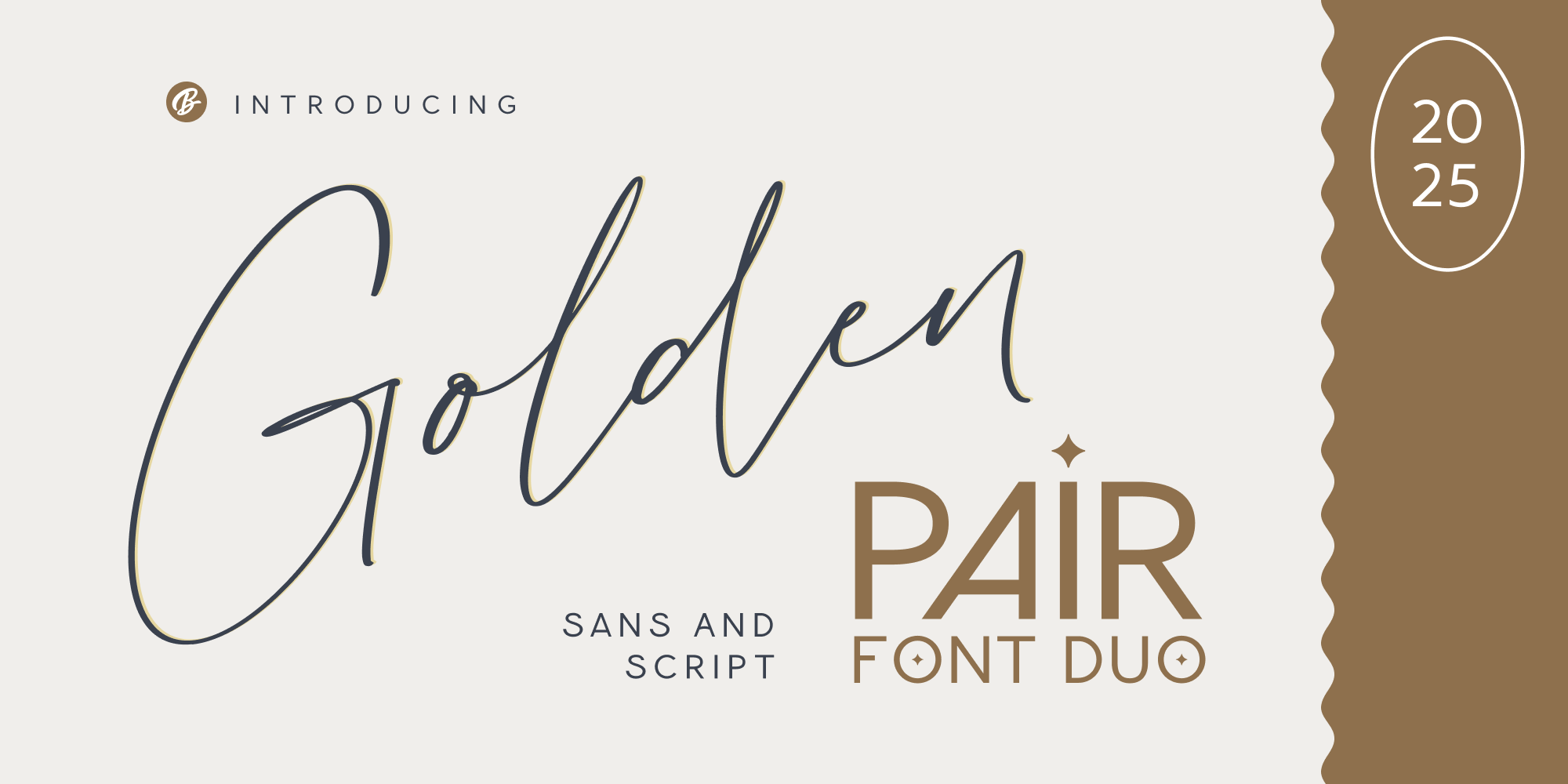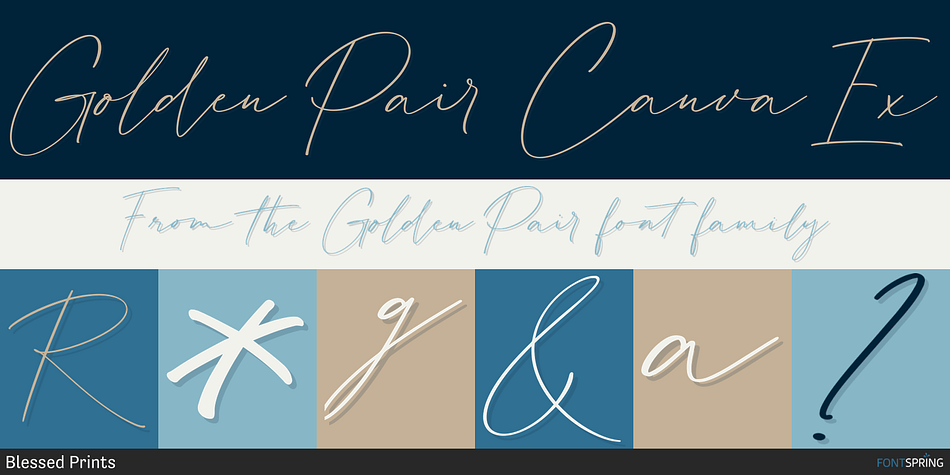
Golden Pair Canva Ex1
Designed by Dmitrii Mikitenko, Golden Pair is a display font family. This typeface has eight styles and was published by Blessed Prints.
Golden Pair is a sophisticated font duo that perfectly blends a modern script with a ligature reach sans serif. Designed for modern creatives, this font offers both versatility and timeless elegance. Whether you’re working on luxury branding, stationary, web design or stylish packaging, Golden Pair provides the perfect balance of charm and professionalism.
Golden Pair Sans Ligatures: This sans font is always displayed in uppercase, even when typing in lowercase. If you type in all uppercase, ligatures will activate automatically.
Golden Pair Sans Alternates: Add a number after a letter to activate stylistic alternates (e.g., `A1, A2, A3`), or use `+` after `O, D, C` to insert a star.
Golden Pair Script Swashes: Add a swash at the end of a word by typing `]`, like `and]` or `and]]]`.
Script font: Thin, Ex1, Ex2 strokes.
406 + 823 Glyphs: Including a vast array of stylistic alternates, ligatures, and contextual alternatives